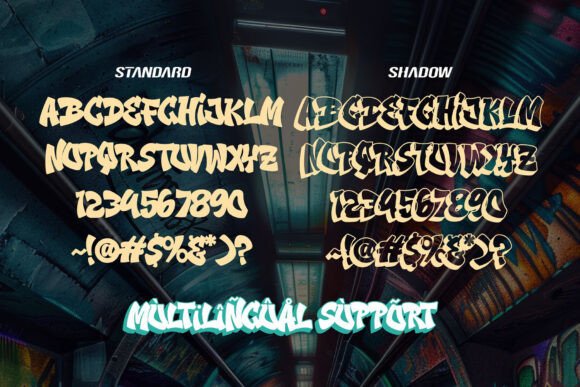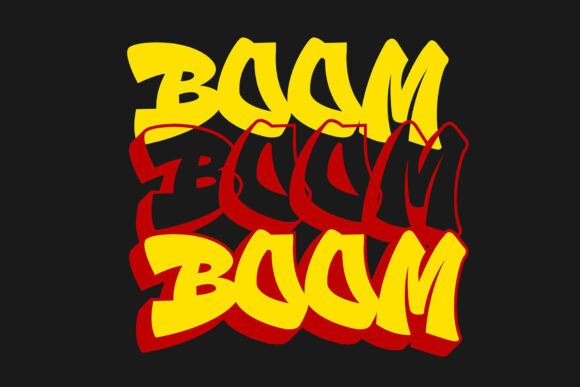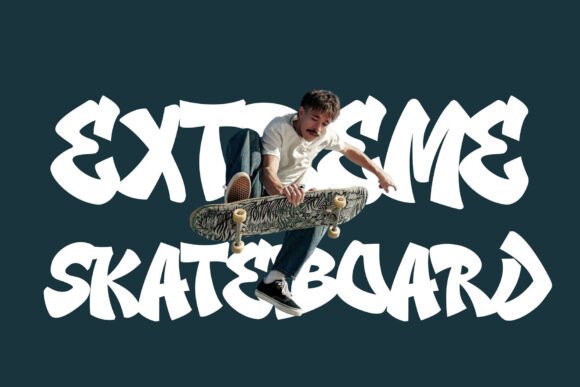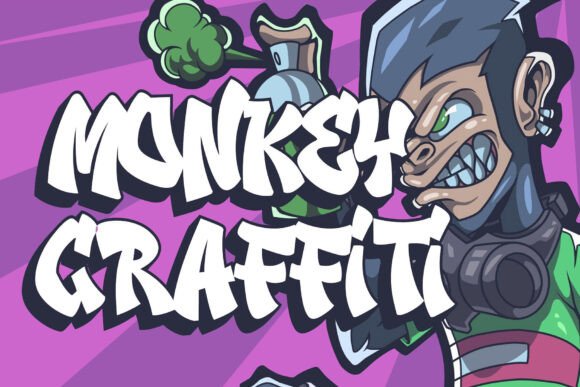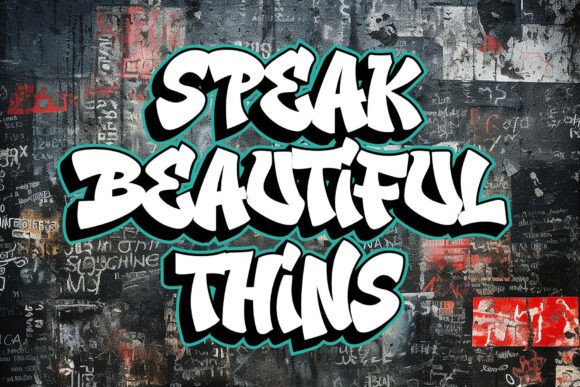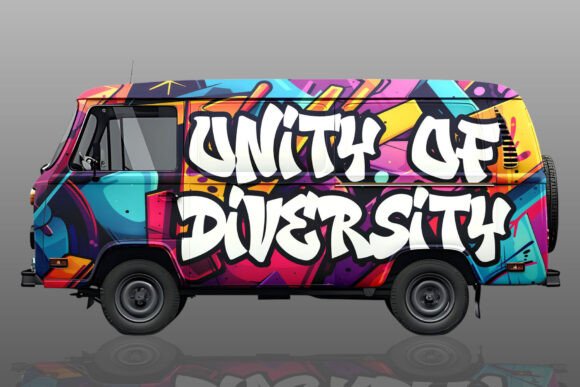
Unleashing the Power of Bold Streak Font
Have you ever stared at a blank canvas, eager to unleash a burst of creativity? For designers, those moments are a thrill – a chance to bring a vision to life and make a statement. But sometimes, the perfect font can be the key to unlocking that spark. Enter Bold Streak Font, a 3D graffiti-inspired font that embodies the raw energy of urban culture.
Bold Streak Font is more than just a typeface – it’s a bold declaration of individuality. With its layered styles and fierce letterforms, it’s the perfect tool for designers seeking to add a splash of intensity to their projects. Whether you’re creating a revolutionary poster or a music album cover, Bold Streak Font offers limitless creative possibilities.
Bold Streak Font Key Features
- Unique Characteristic: Bold Streak Font features a distinctive, dynamic feel, with bold lines and a modern aesthetic, making it perfect for use in headlines, titles, and other attention-grabbing text.
Designer Review: Bold Streak Font
As a designer, I was excited to dive into the Bold Streak Font and see what it had to offer. Here’s my honest take:
- Uniqueness – Bold Streak Font truly stands out from the crowd with its bold, energetic feel.
- Customization – The font offers a wide range of customization options, making it perfect for designers who want to add a personal touch.
- Legibility – Despite its bold appearance, the font remains highly legible, making it suitable for a variety of applications.
The Bold Streak Font is a great choice for designers who want to add a bold, energetic feel to their projects. While it has some limitations, the font’s uniqueness and customization options make it a valuable addition to any designer’s toolkit.
Getting the Most Out of Bold Streak Font
For optimal results, use the Bold Streak font in bold or italic styles to add emphasis to your text.
Combine the font with contrasting colors to make your text stand out.
Use the Bold Streak font for:
- Emphasizing important information
- Adding a modern touch to your designs